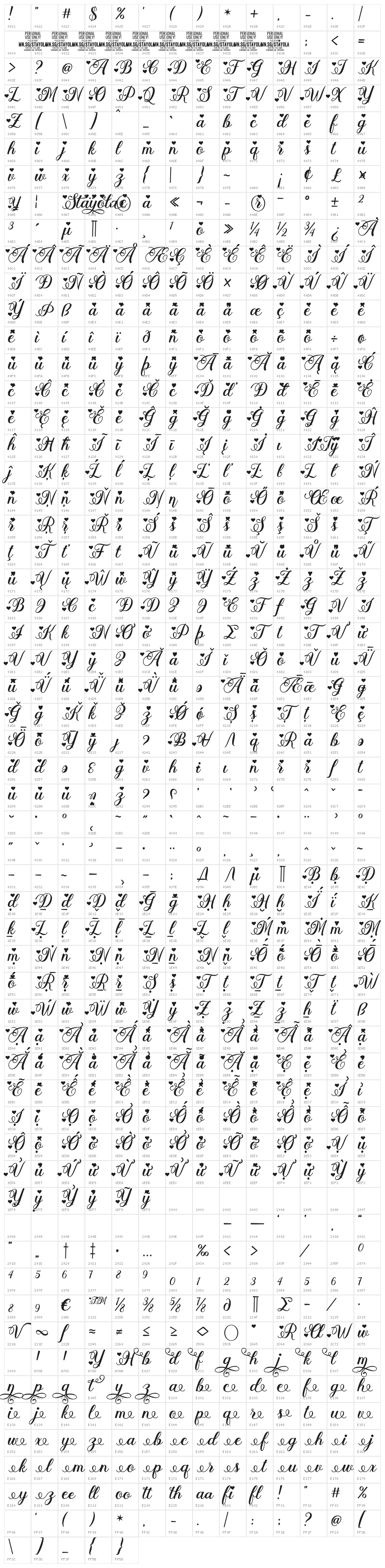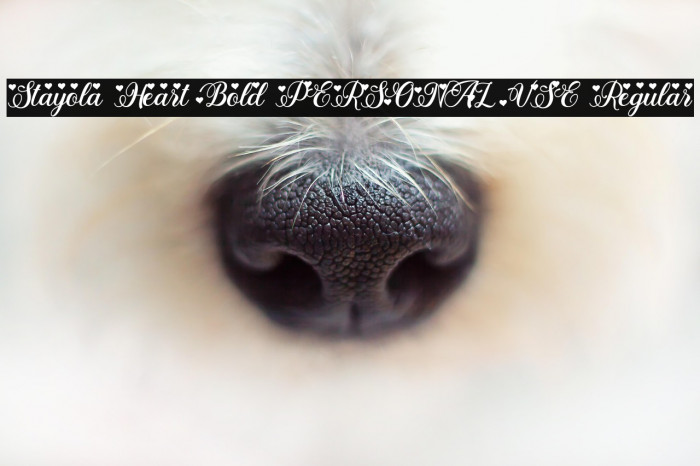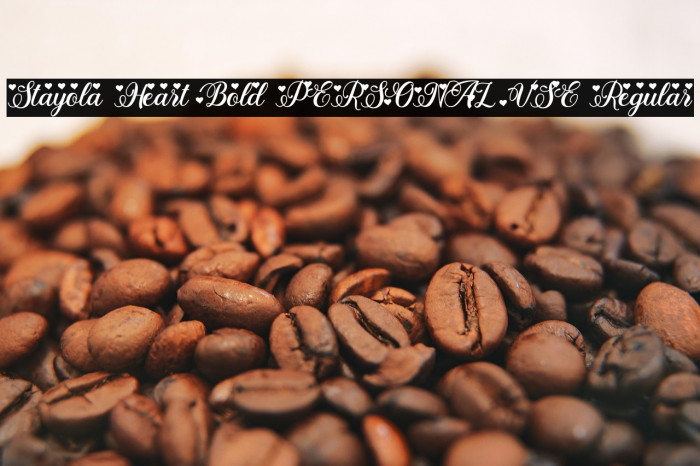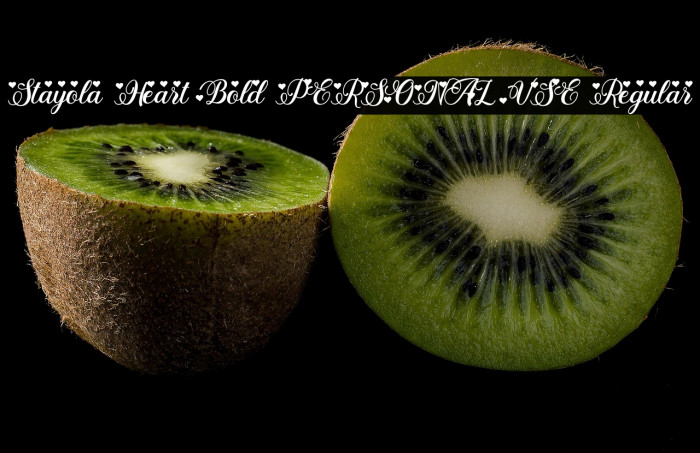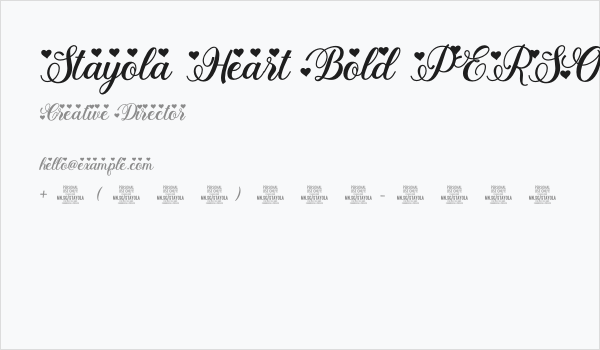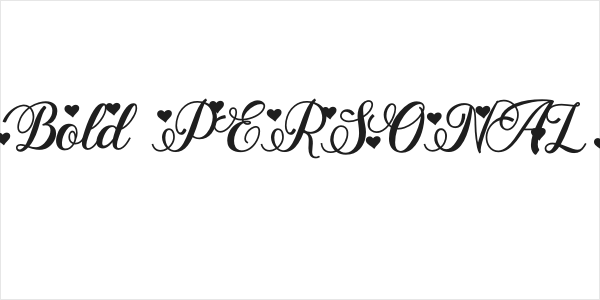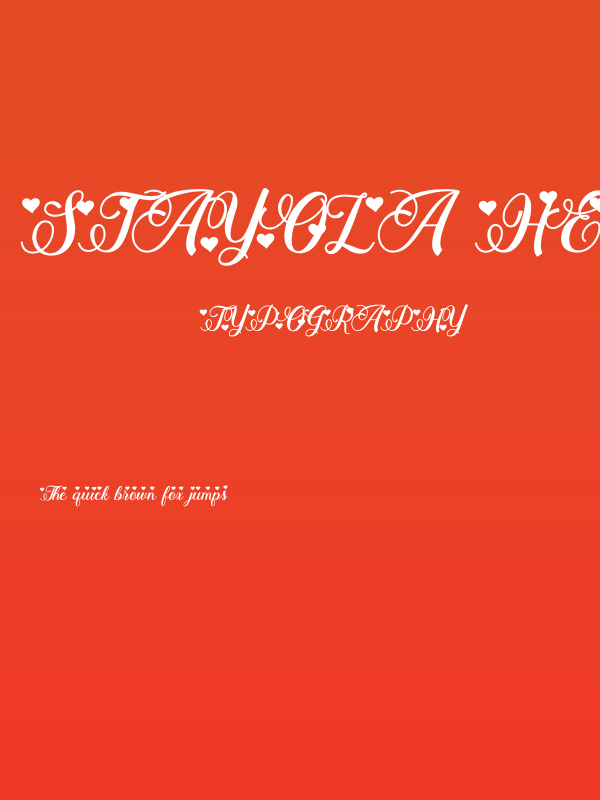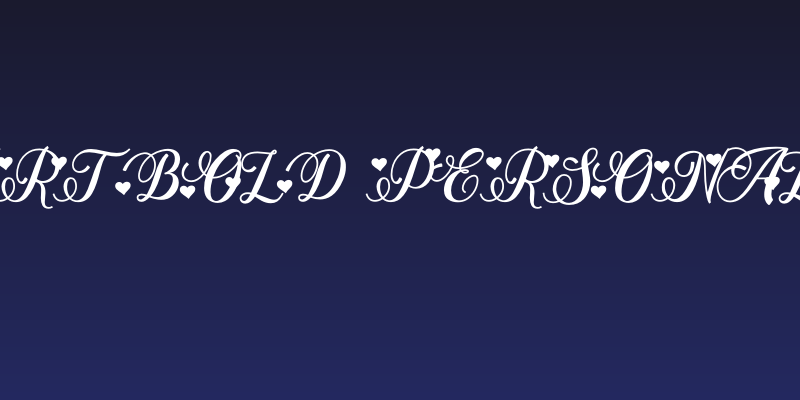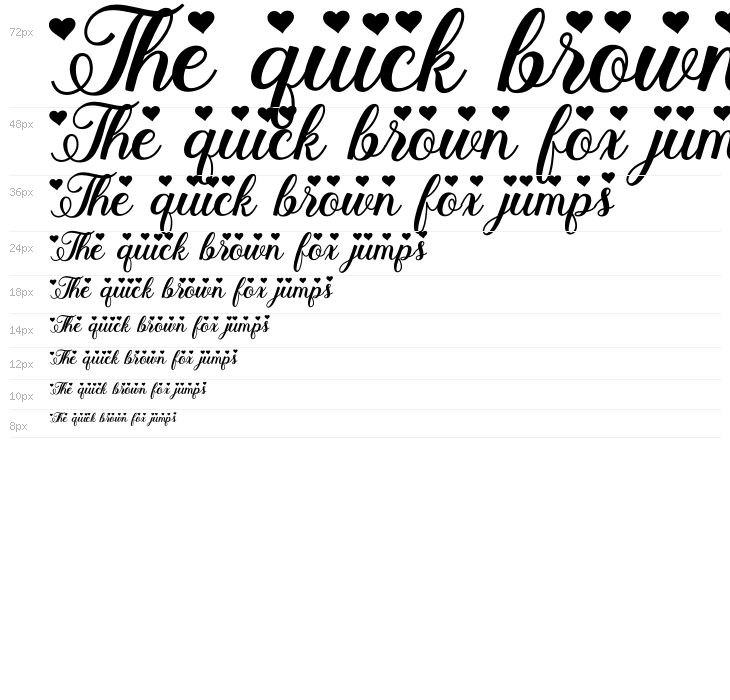
Stayola Heart Bold PERSONAL USE Regular Font
Stayola Heart Bold PERSONAL USE Regular Description
This font features a playful and romantic script style, characterized by its decorative heart motifs integrated into the letterforms. The uppercase letters are elegant and flowing, with a consistent slant that adds a sense of movement. The lowercase letters maintain a similar style, with smooth curves and a cohesive design. The font includes a variety of special characters, maintaining the heart theme, which enhances its whimsical and charming appearance. The overall design is bold, making it suitable for eye-catching displays and creative projects.
| Proposed Projects | Ideal for wedding invitations, Valentine's Day cards, love-themed branding, and decorative posters. |